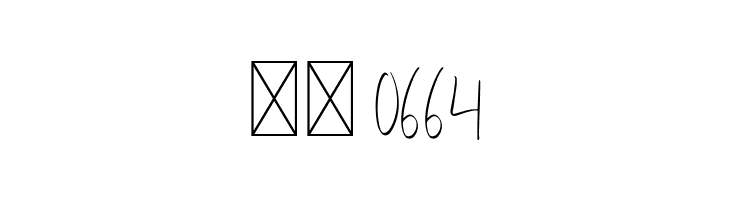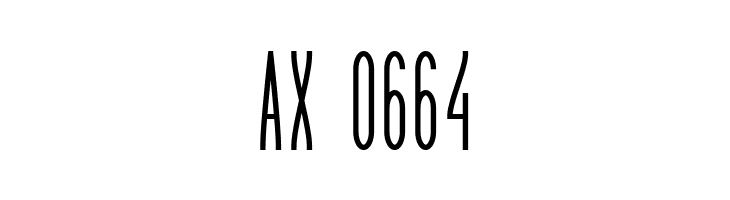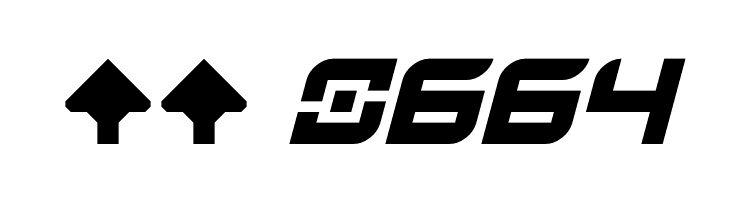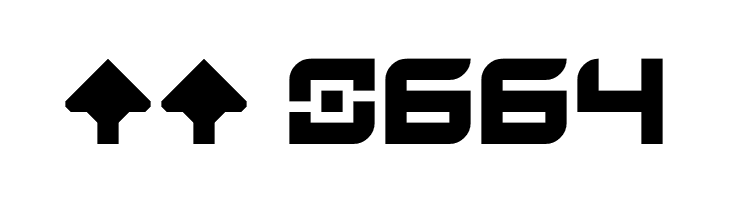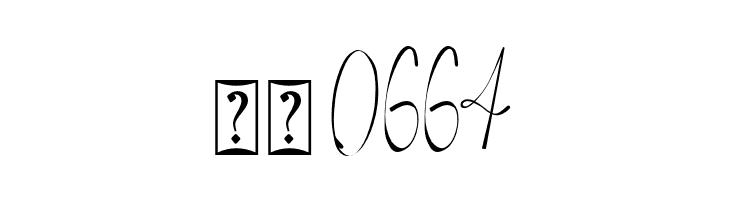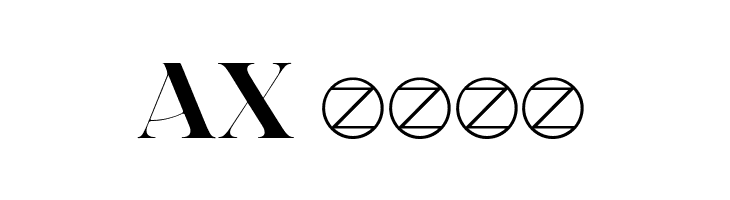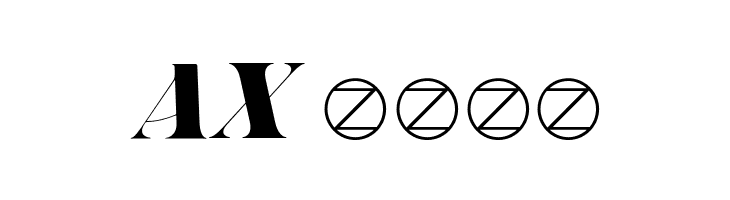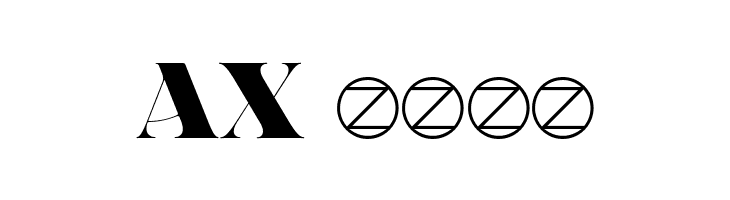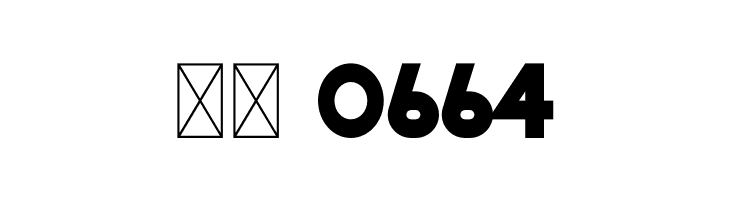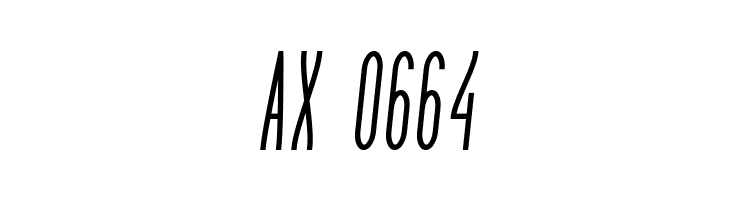
An ornate, decorative font with intricate swirls and high contrast, perfect for artistic projects.
An ornate and decorative font with intricate swirls and embellishments.
A bold, geometric font with strong lines and modern appeal.
A bold, geometric font with a modern and impactful style.
A dynamic, cursive handwritten font with an elegant and fluid style.
A casual, elegant handwritten font with fluid strokes and dynamic slant.
A modern, elegant script font with flowing, connected letters.
A dynamic, expressive script font with a handwritten style.
A modern, geometric sans-serif font with clean lines and uniform stroke width.
A dynamic handwritten font with fluid, cursive strokes and a playful appearance.
A modern, arrow-themed font with bold, geometric characters.
A modern, elongated, and narrow font with consistent stroke width.
A modern, italicized font with tall, narrow characters and high contrast.
A fragmented, abstract font with bold, angular shapes.
A dynamic, fragmented italic font with a modern, edgy style.
A bold, futuristic font with geometric shapes and sharp angles, ideal for tech-inspired designs.
A bold, futuristic font with sharp angles and a dynamic slant.
A decorative set of abstract, arrow-themed symbols with a modern, geometric style.
A bold, Gothic-inspired font with sharp, angular lines and pointed serifs.
Abstract, decorative dingbat font with arrow and geometric motifs.
Hand-drawn, grungy arrow icons in square frames.
Abstract, arrow-based decorative font with bold geometric forms.
A bold, playful font with high contrast and rounded shapes, perfect for decorative use.
A playful, casual handwritten font with fluid strokes and a friendly appearance.
A playful, handwritten cursive font with fluid, connected strokes.
A bold, geometric font with angular lines and a modern industrial style.
A bold, high-contrast serif font with a dramatic and elegant style.
A bold, italic serif font with dramatic serifs and a modern flair.
A bold, high-contrast serif font with sharp serifs and a modern flair.
An elegant italic serif font with high contrast and flowing curves.
A high-contrast, elegant serif font with refined strokes and classic flair.
A light, italic serif font with high contrast and elegant style.